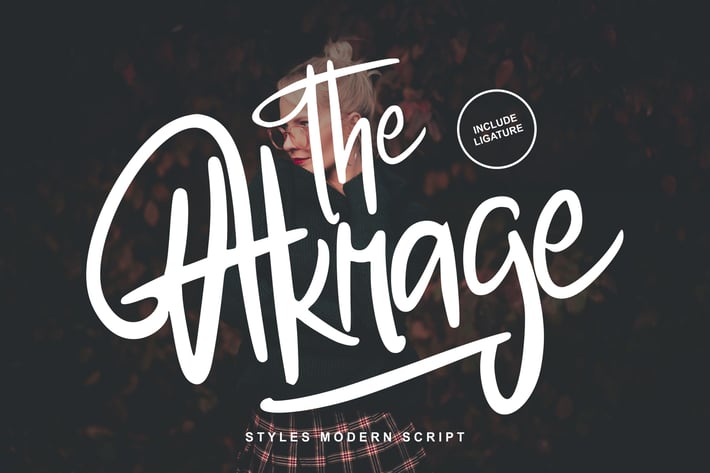
The Akrage | Styles Modern Font
The Akrage | Styles Modern Font with a calligraphy style, So beautiful on invitation like greeting cards, branding materials, business cards, quotes, posters, and more!